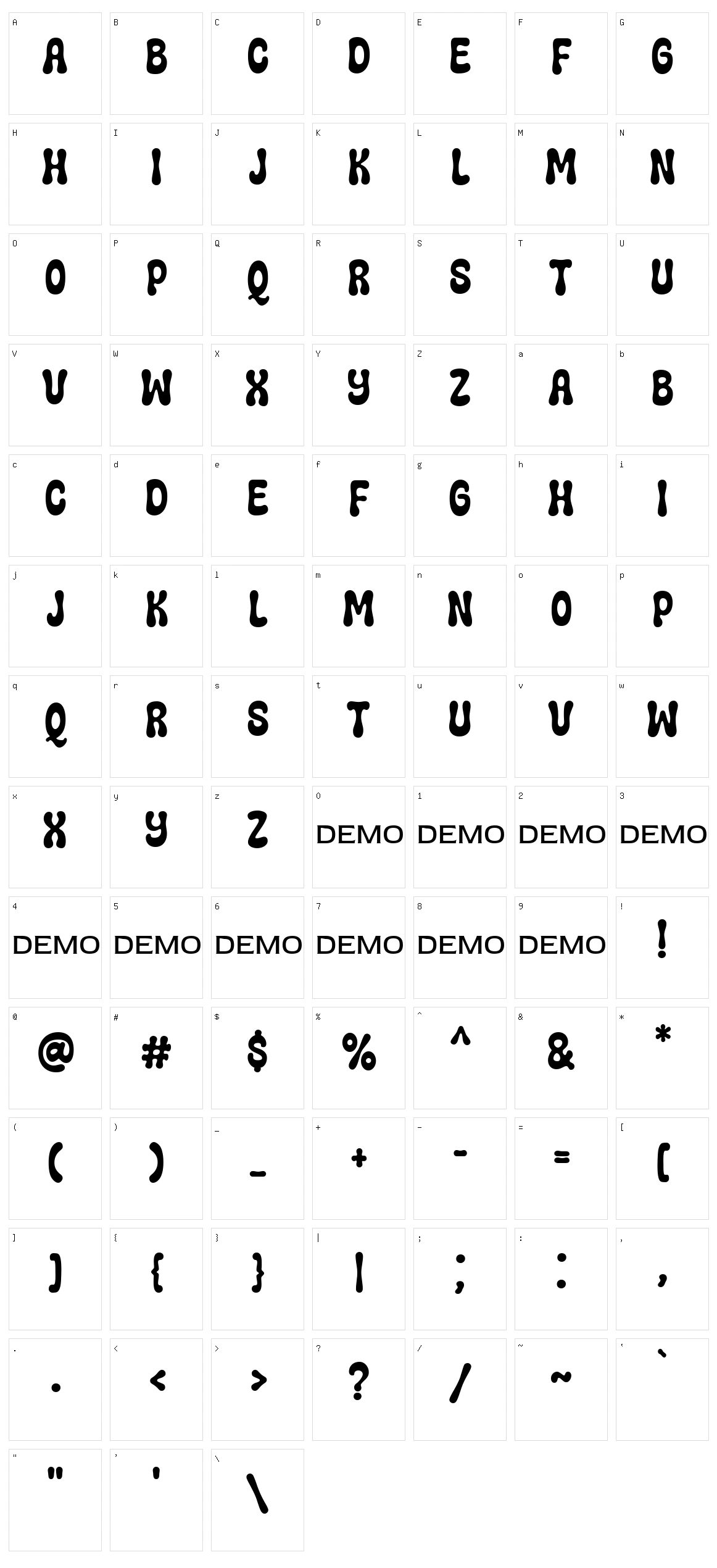
The free font Kitschy Retro is carefully designed by Letterfly Studio, showcasing a thoughtful balance of creativity and usability and falls under the Groovy font style. When you download the ZIP file, it contains only 34.1 KB of font files, making it lightweight and quick to download. Please review the license details below to understand permitted usage and distribution rights. If license information is not available, we recommend using this font for personal projects only or contacting the author directly for commercial usage permissions.